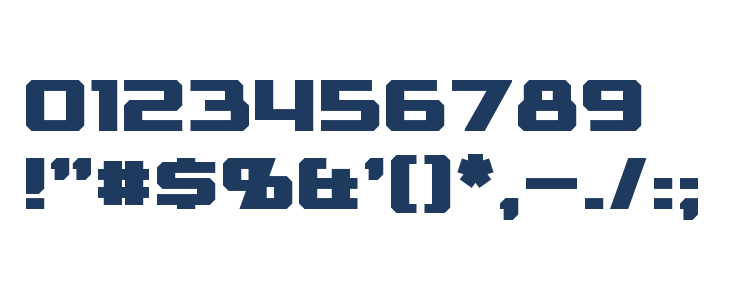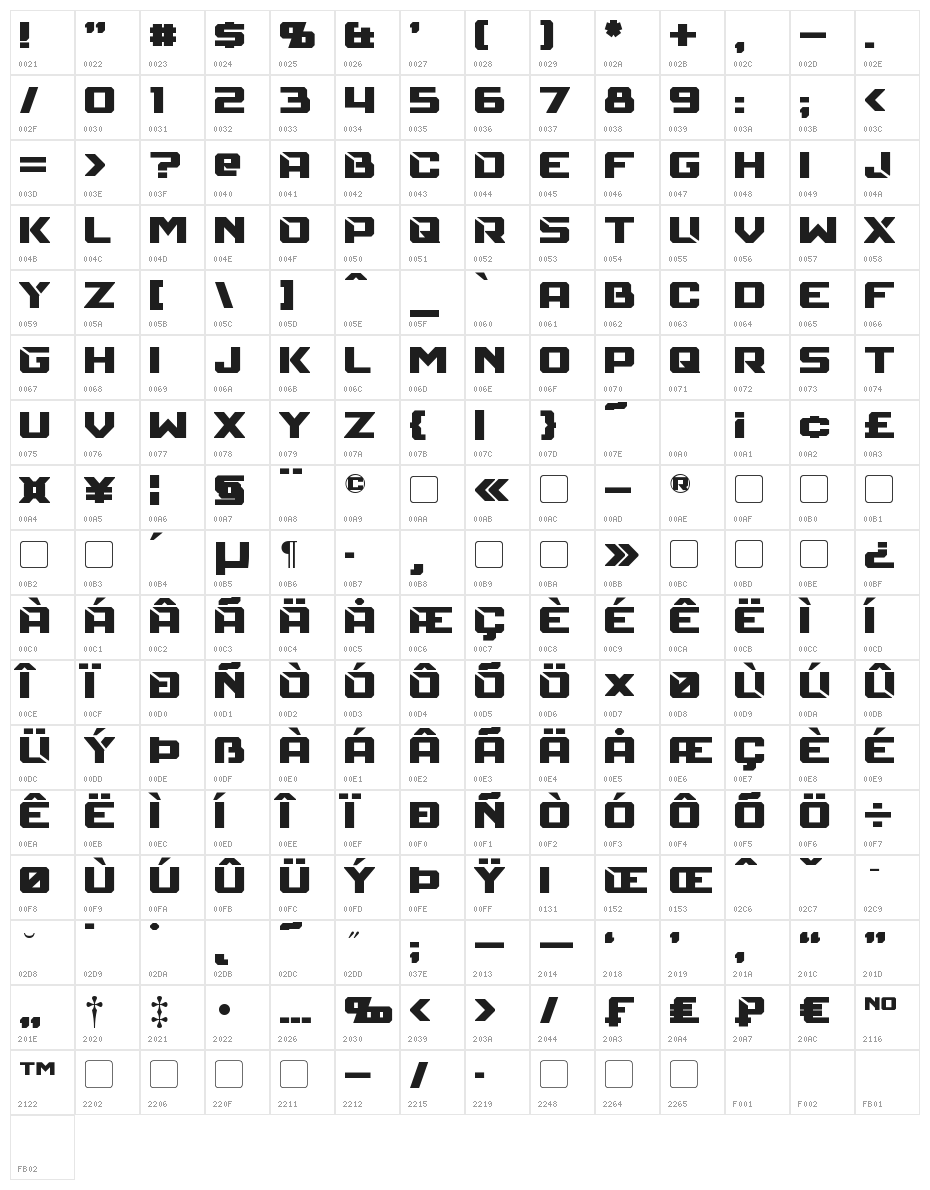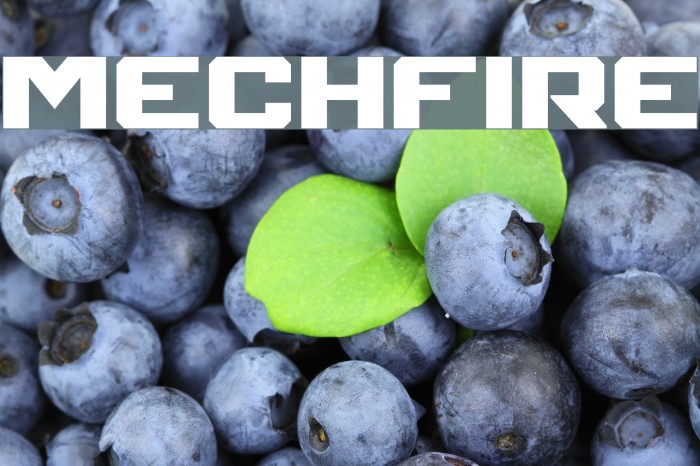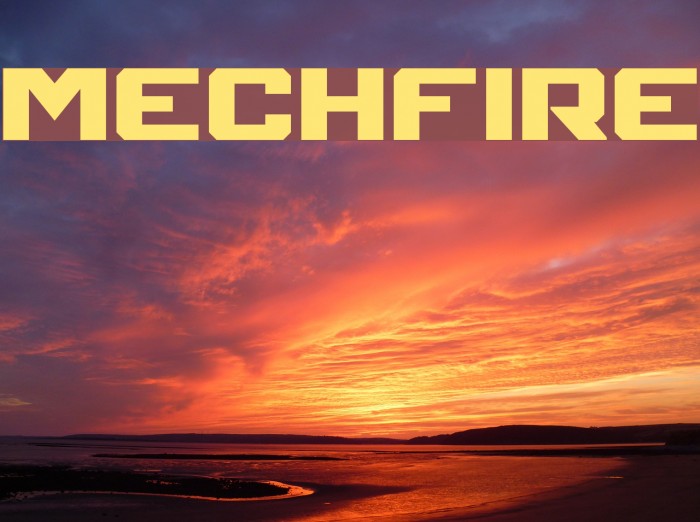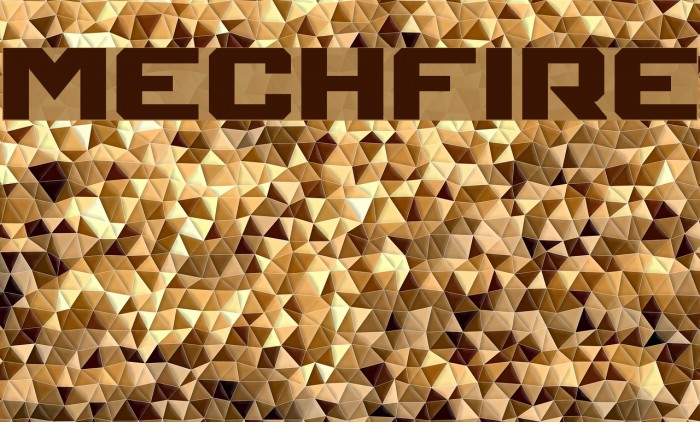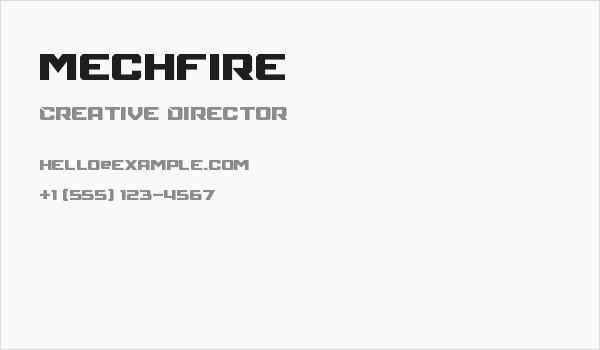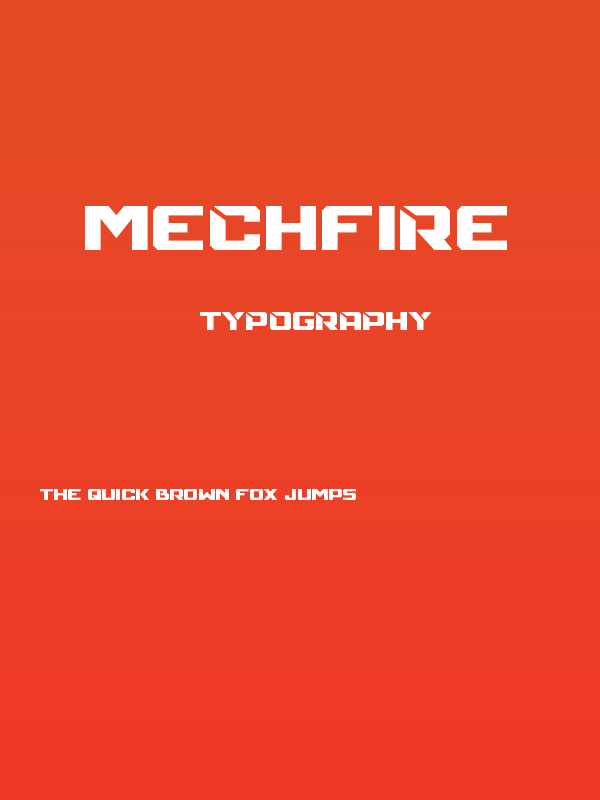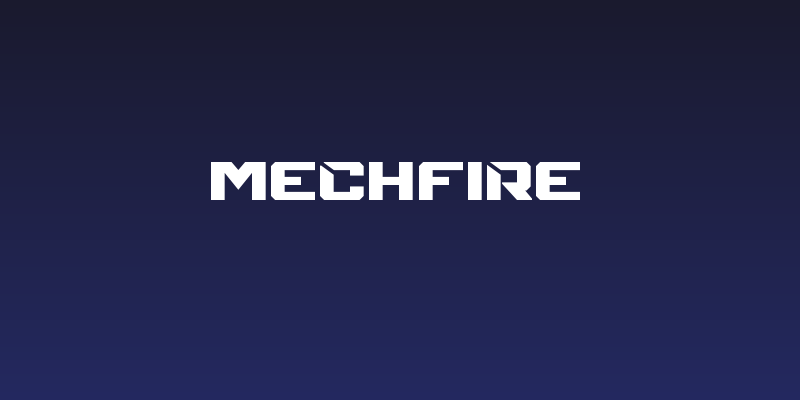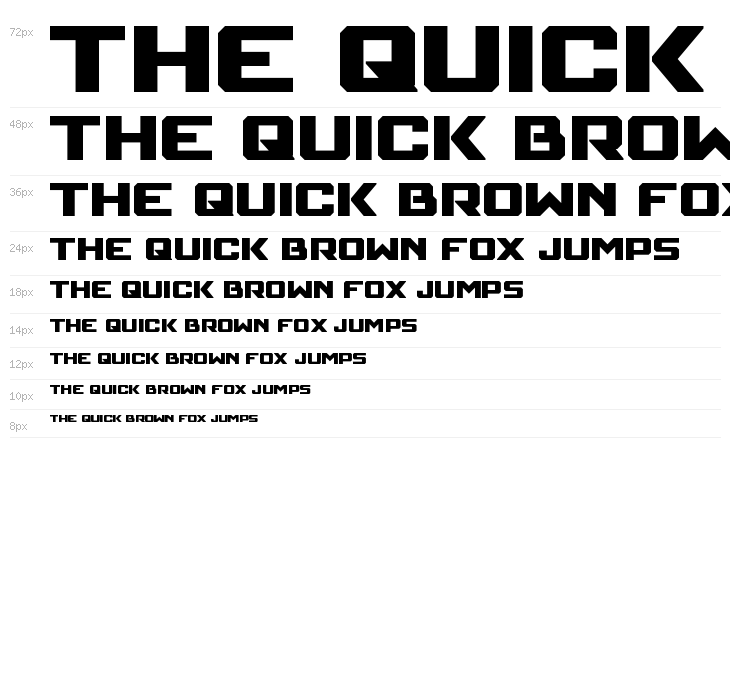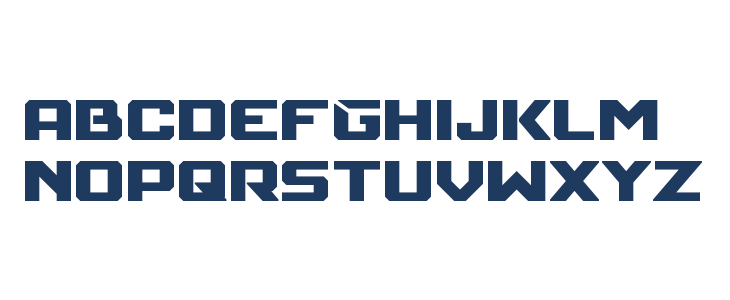
Mechfire Font
Mechfire Description
This font features a bold, geometric design with a futuristic and industrial feel. The characters are constructed with sharp angles and straight lines, giving it a mechanical and robust appearance. The uppercase letters are particularly striking, with a blocky and solid structure that conveys strength and modernity. The lowercase letters maintain the same geometric style, ensuring consistency throughout the typeface. Numbers and special characters are designed to match the boldness and angularity of the alphabet, making this font suitable for impactful and eye-catching designs.